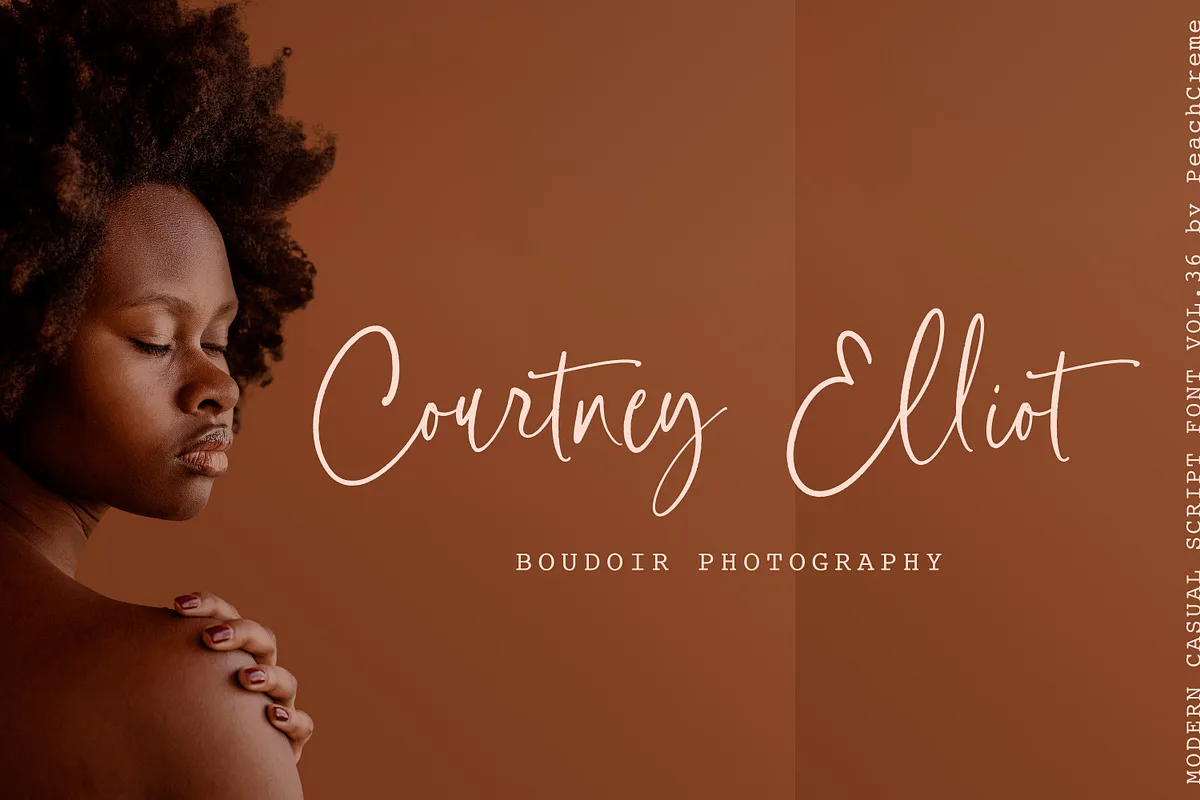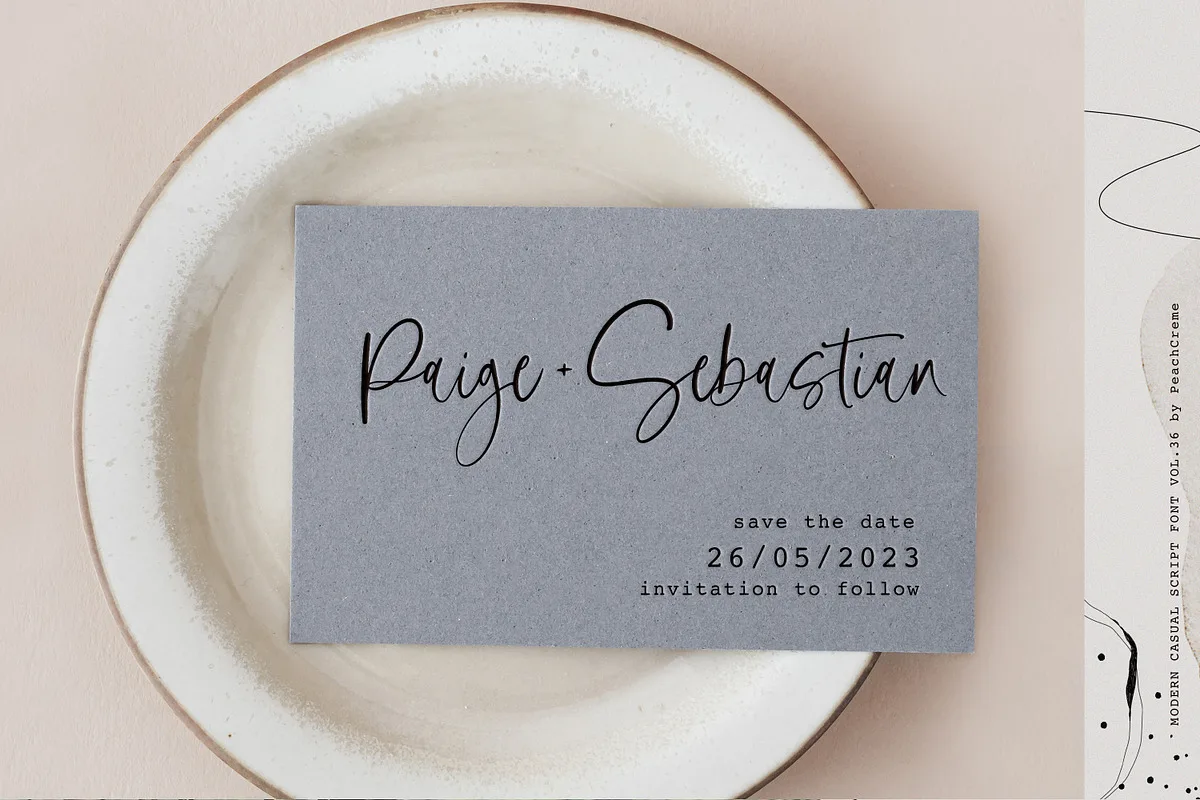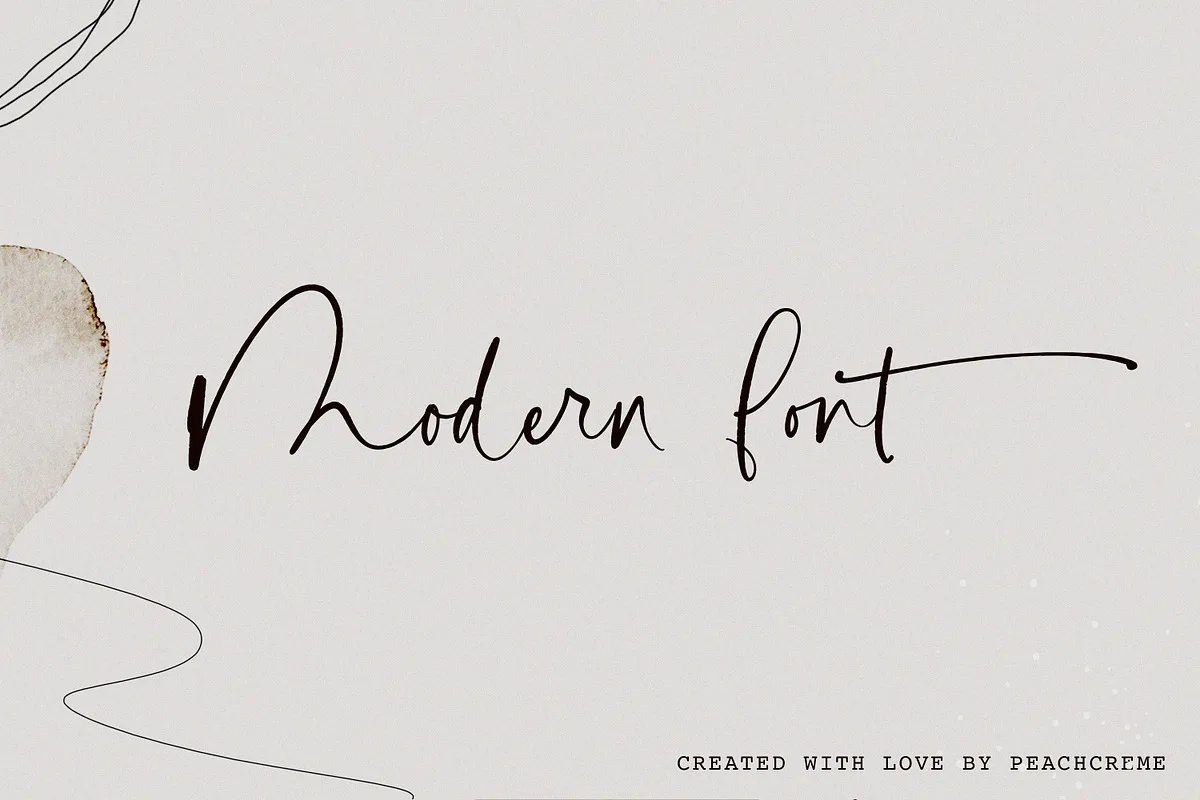
Scarlet is a new casual modern script font. It includes a full set of uppercase and lowercase letters, multilingual symbols, numerals, punctuation and 134 ligatures.
The font has a rough texture. It has beginning and ending lowercase letters.
Scarlet Script Font